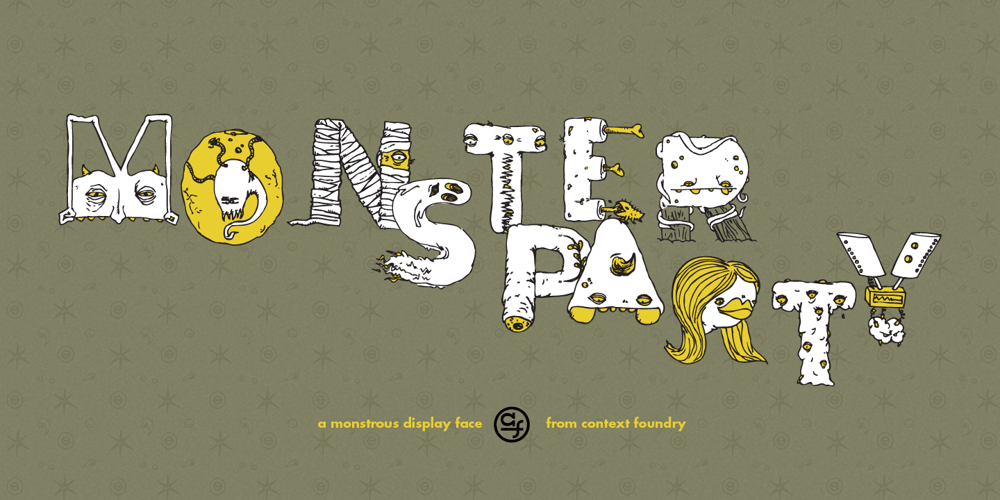
Monster Party Font Family was designed by Alex Liebold and published by Context. Monster Party contains 2 styles and family package options. Monster Party is an illustrated display face with a lot of character for any haunting occasions. It comes in two styles, Monsters and Bones for whichever your situation calls for. Monsters features two unique sets of upper case creatures for appropriately spooky headline variation. Great for Friday the 13th, Halloween or wherever whimsy is needed.